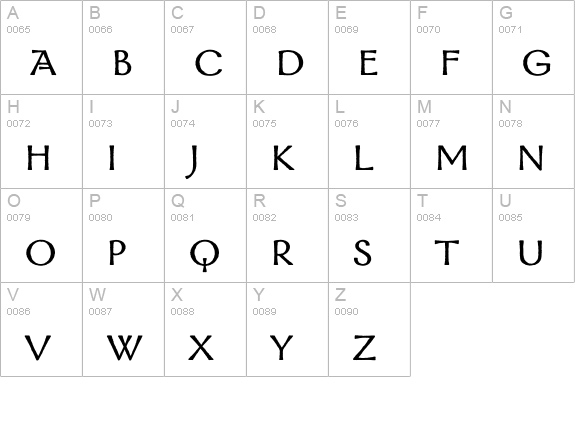
Mordred-Bold is a strong, high-contrast variant in the Mordred typeface family \xE2\x80\x94 well suited to headlines, attention-grabbing titles, and strong calls-to-action.
Mordred-Bold is a striking and powerful font that exudes confidence and strength. Its bold and commanding presence makes it perfect for headlines, logos, and other design projects that demand attention. With its clean lines and modern aesthetic, Mordred-Bold is sure to make a bold statement in any design application. What's even better is that Mordred-Bold is available for free download at FontsMarket.com. This means you can add this impressive font to your collection without any cost, allowing you to elevate your design projects without breaking the bank. Don't miss out on the opportunity to enhance your designs with Mordred-Bold - download it today and unleash the power of this exceptional font.